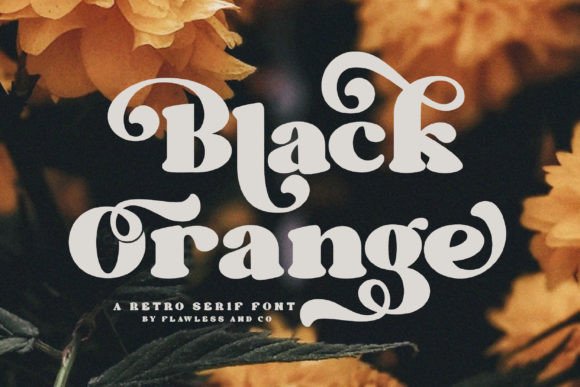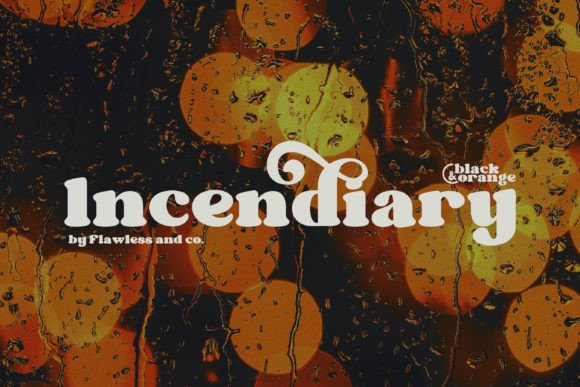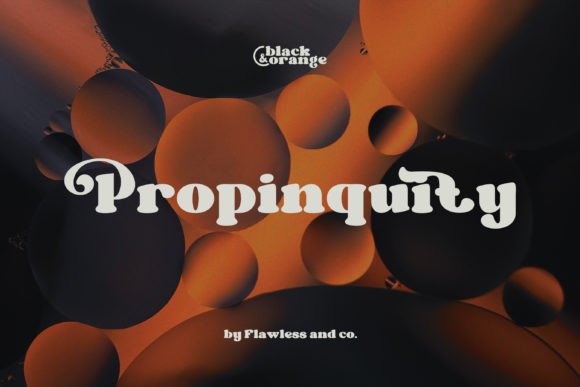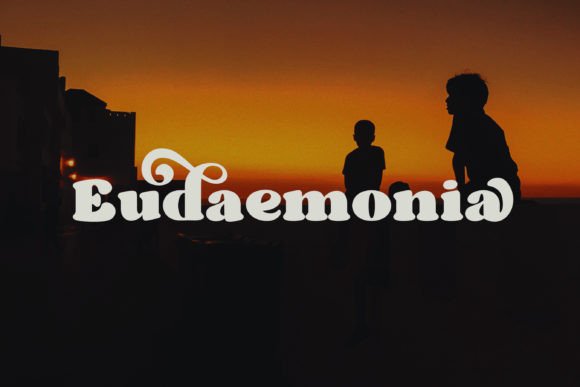
Black Orange Font: A Groovy Retro Serif for Headlines & Branding
About the Black Orange Font
Meet Black Orange Font, a stunning font that brings a touch of elegance and professionalism to any design. Introducing “Black Orange” – A Retro Serif Font. Journey back in time to the classic and timeless era of design with “Black Orange,” a captivating retro serif font that exudes the essence of vintage charm. With its elegant serifs and distinctive character, “Black Orange” brings a touch of nostalgia and sophistication to your creative projects.
Black Orange’s strong serifs and confident letterforms make it ideal for headlines, logos, and short text blocks in branding materials or posters. Its vintage charm works well for projects evoking a retro aesthetic, such as packaging for vintage-inspired products or marketing campaigns targeting a nostalgic audience. However, its relatively high x-height and strong stroke contrast make it less suitable for body text or lengthy paragraphs; readability suffers at smaller sizes.
This font projects a bold and sophisticated personality. To complement this, consider pairing Black Orange with a clean sans-serif like Montserrat for body text or a playful script font like Great Vibes for supplementary elements. For a more modern feel, a geometric sans-serif such as Futura would create a striking contrast.
Alternatively, a neutral serif like Garamond could offer a subtle balance, maintaining a classic feel without being overly similar. The key is to choose a contrasting but harmonious pairing to avoid visual clutter and ensure optimal legibility.